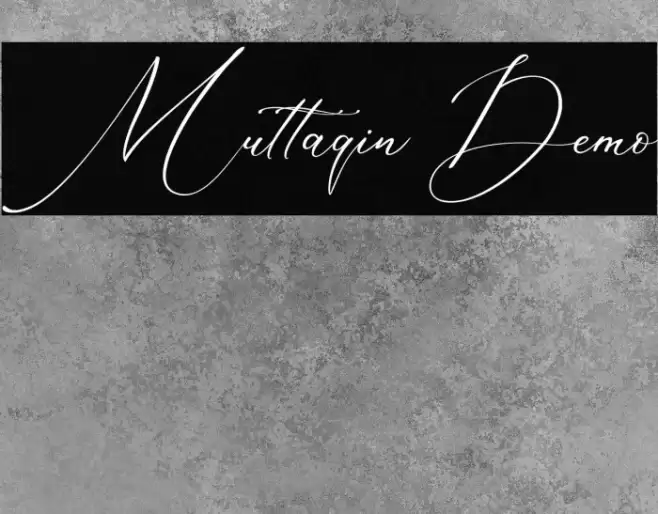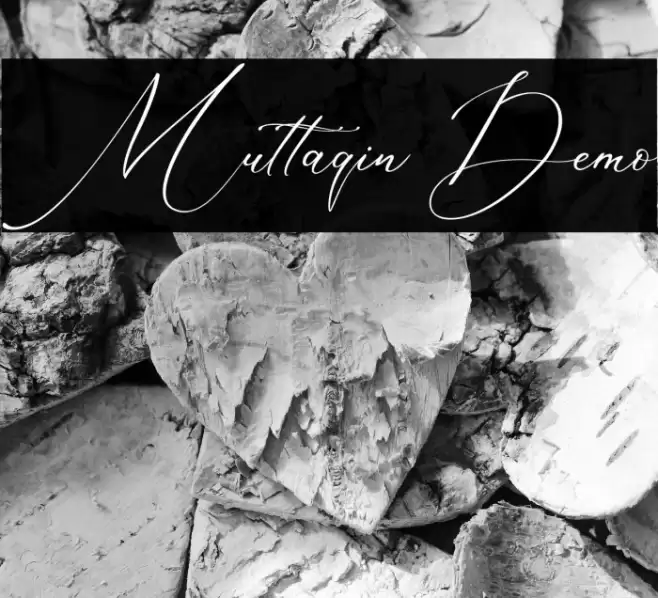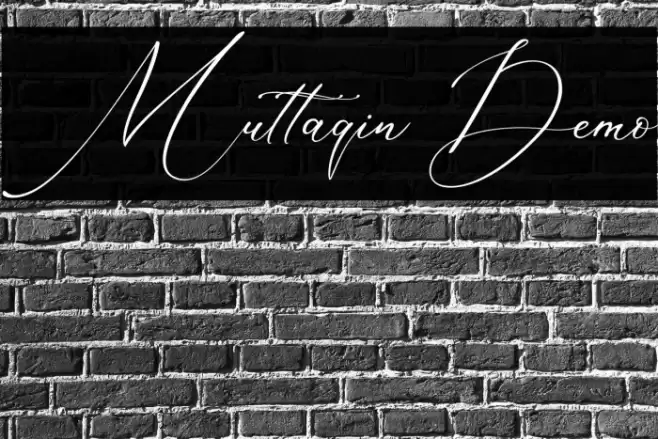
Muttaqin Demo Font
Muttaqin Demo Description
This font exudes elegance and sophistication with its flowing, cursive script style. The characters are intricately designed, featuring delicate loops and swashes that give it a graceful appearance. The uppercase letters are tall and slender, while the lowercase letters maintain a consistent flow, enhancing readability despite the decorative nature. The numerals and special characters are equally ornate, maintaining the overall aesthetic of the font. This font is ideal for projects that require a touch of elegance and class, such as wedding invitations, formal event programs, or luxury brand logos.
An elegant, cursive script font with intricate loops and swashes from Uncategorized fonts.
- Proposed Projects: Wedding invitations, formal event programs, luxury brand logos.
- Contrast: High
- Overall Style: Elegant
- Use Case: Logos, Invitations, Decorative text